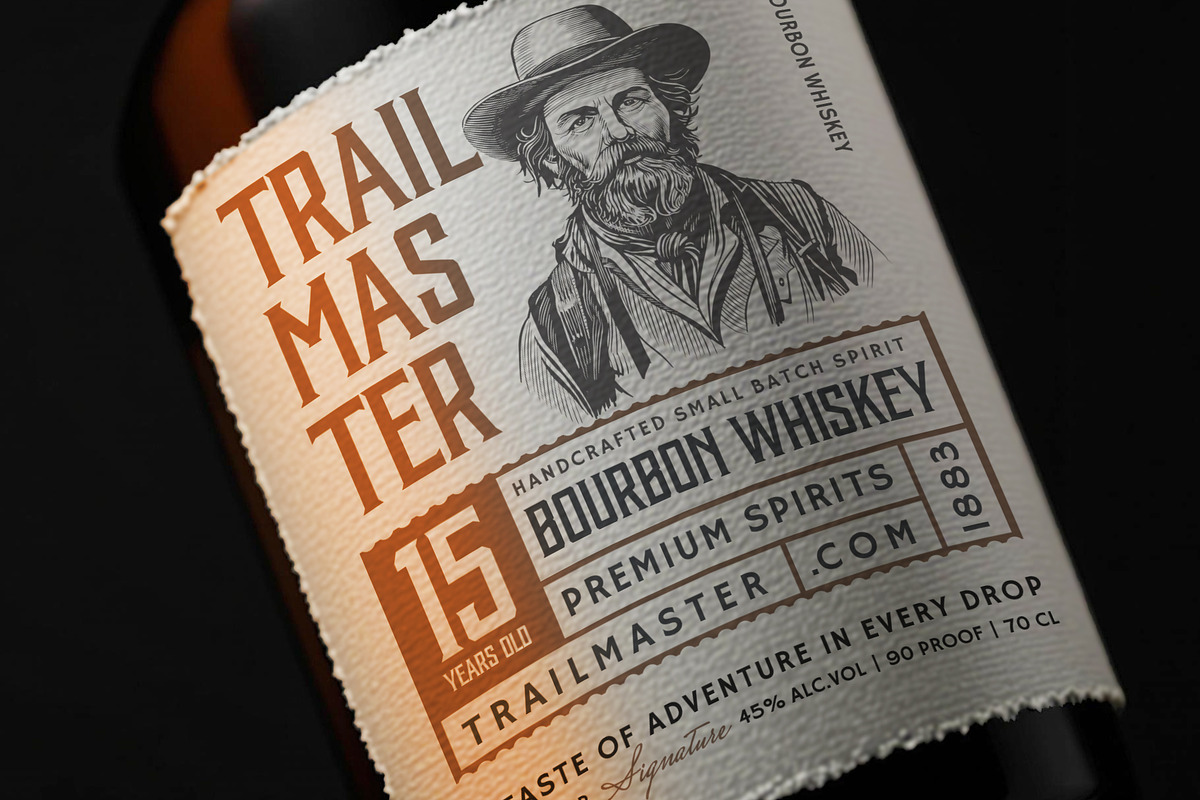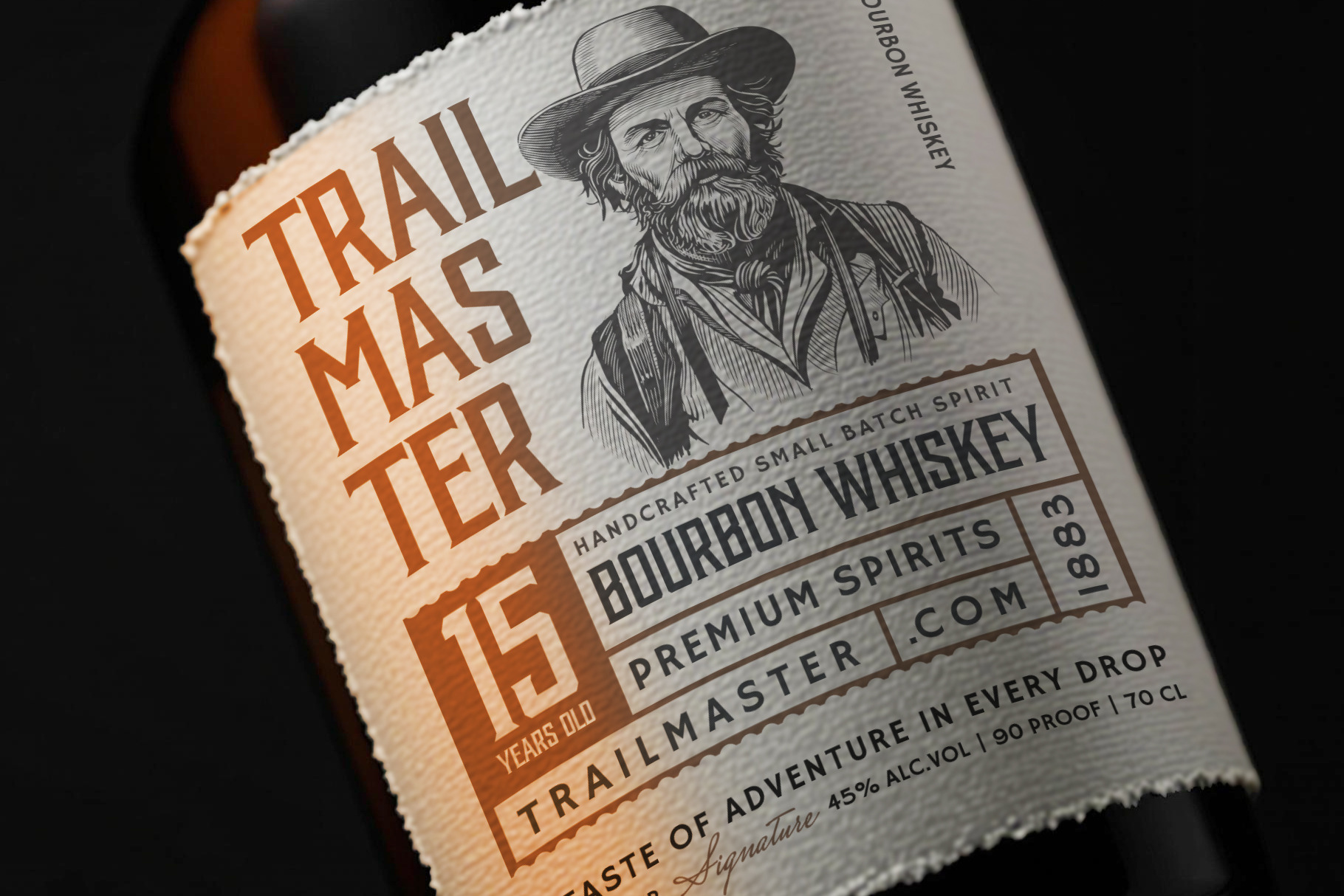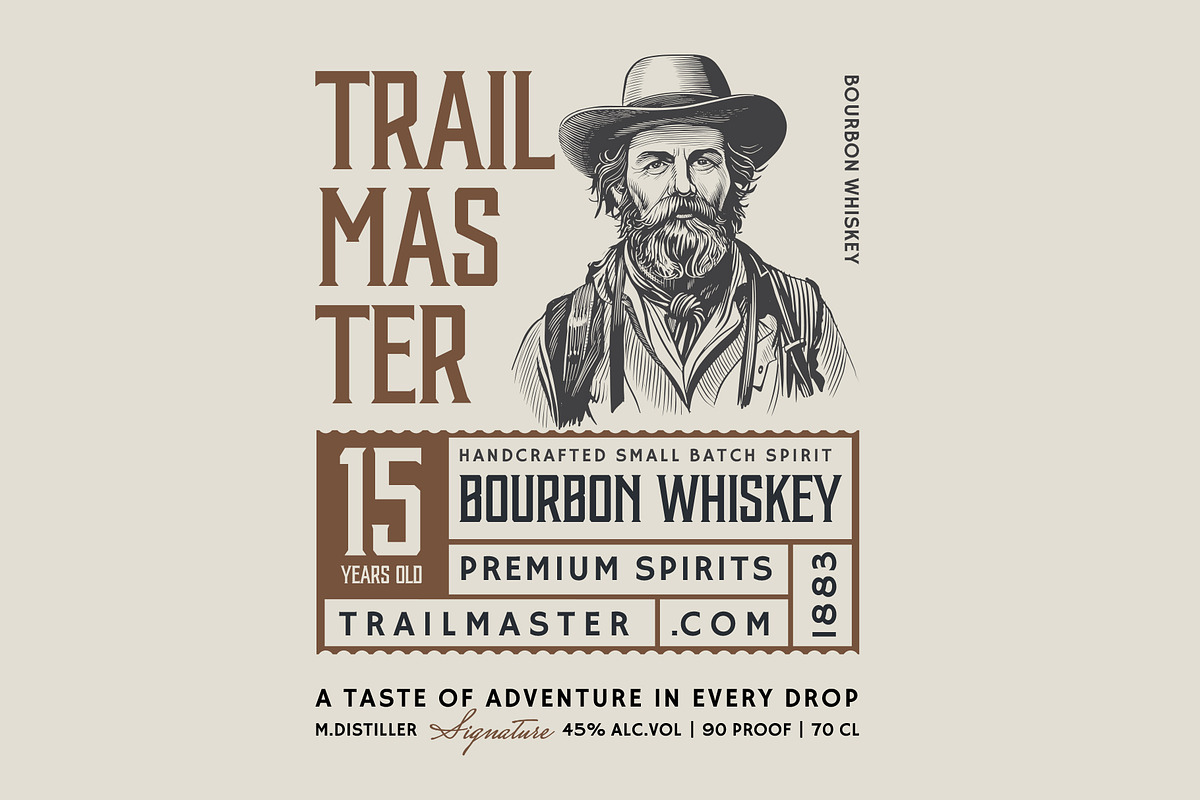
Whiskey Label + Font
TRAILMASTER - Vintage Whiskey Label Template + Buckle All Caps Font (my own) Introduce your spirits brand to the world with this meticulously crafted whiskey label design featuring authentic hand-drawn illustration in classic engraving style. Perfect for bourbon, whiskey, or spirits brands seeking to convey heritage, craftsmanship, and adventurous spirit. The font in which 'Trailmaster' is written is my own font which IS INCLUDED into this package ($20 value) All objects of this label are vector shapes and editable text, so you can scale it to any size